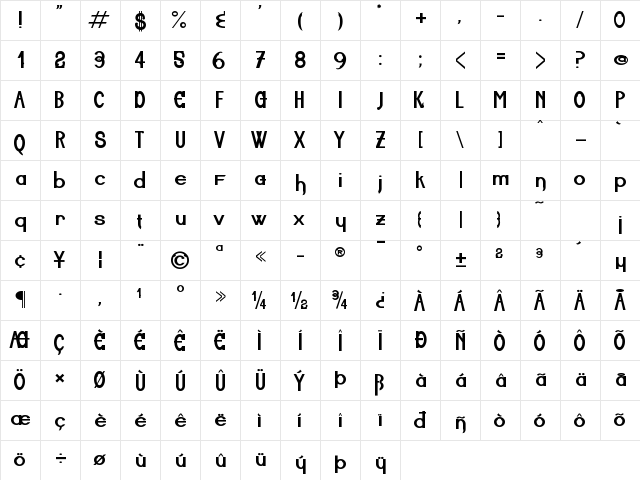
Aiuruoca Regular
Design Context for Aiuruoca Typeface
Aiuruoca takes a measured approach to typography — its balanced proportions and neutral character make it a reliable workhorse for both digital and print work.